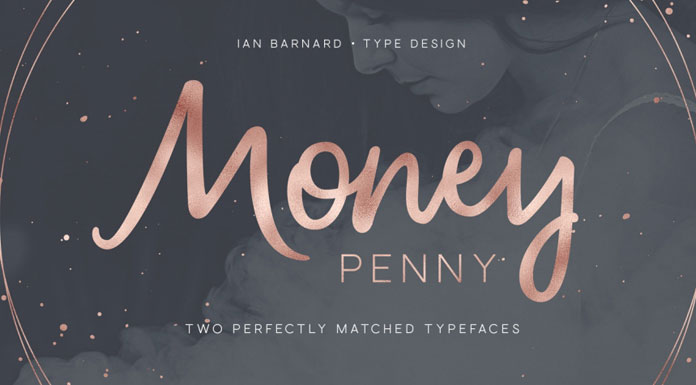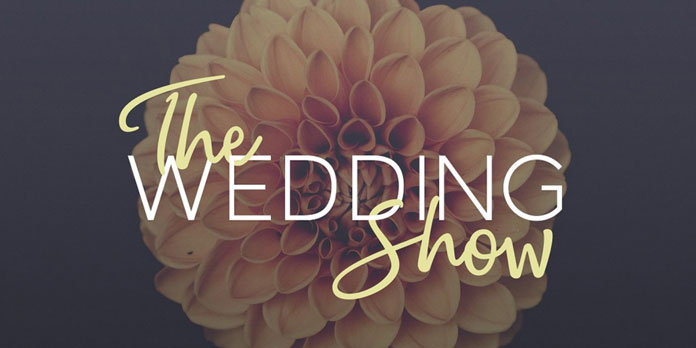
Money Penny – two perfectly matched typefaces from Ian Barnard.
Today I want to introduce you to Money Penny, a font duo consisting of a sans serif and a flowing brush script typeface. The fonts have been designed and published by Ian Barnard. With great attention to usability, both typefaces have been designed for countless areas of application. The perfectly matched typefaces can be combined in different ways. Whether t-shirt designs, posters, magazine covers or stationery, these fonts will help you to create modern typographic work with ease. For additional information, please follow the link below.